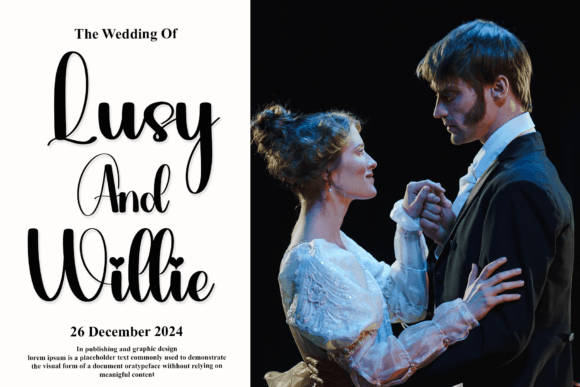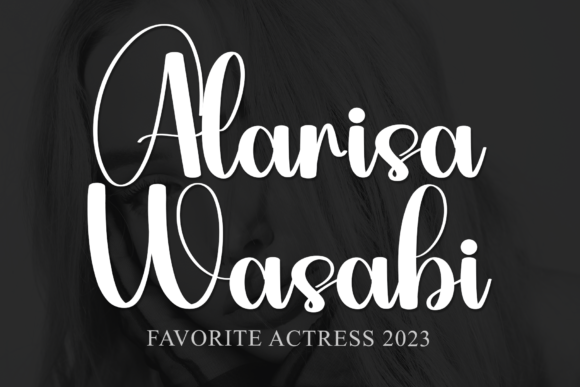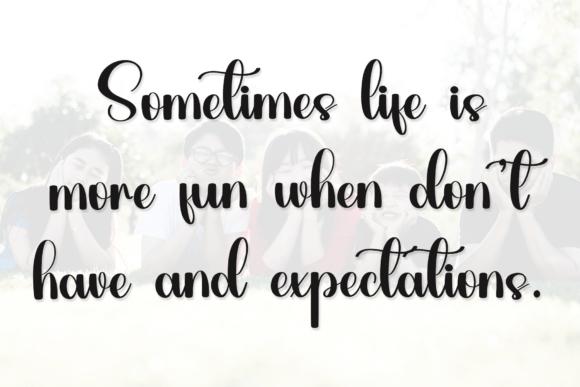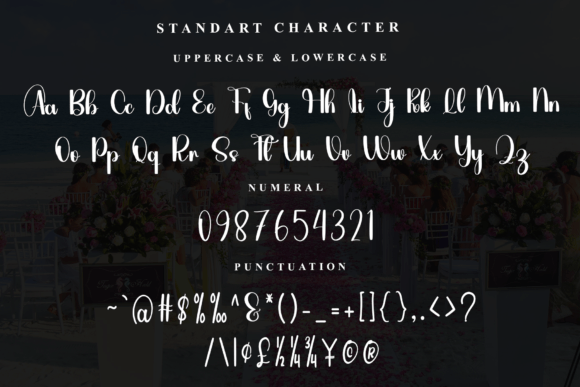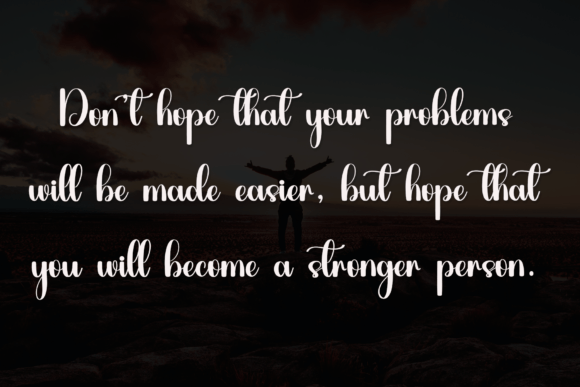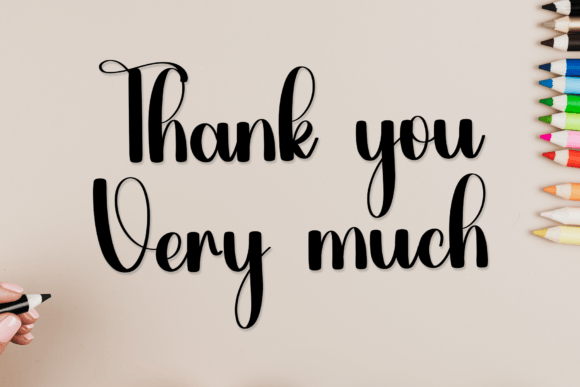
The Perfect Font for a Fresh and Casual Vibe
Have you ever stared at a blank canvas, trying to find the perfect font to match your creative vision? You know that feeling when you’re on the verge of a design breakthrough, but just need that one crucial element to bring it all together? For many designers, this is the moment when the right font can make all the difference.
Enter Balentia Font, a charming handwritten font that embodies the essence of freshness and casual elegance. With its fluid strokes and organic lines, Balentia Font is the perfect addition to any design project, from branding and invitations to social media graphics. Its unique character adds a touch of warmth and personality, making it a valuable asset for designers looking to create memorable and engaging designs.
Balentia Font Key Features
- Font Family: Balentia Font is a modern, elegant script font family, ideal for various design applications.
- Unique Characteristics: Balentia Font features a flowing, cursive design with subtle flourishes, perfect for creating elegant and sophisticated typography.
- Font Styles: The font family includes multiple styles, including Regular, Italic, Bold, and Bold Italic, providing versatility for various design applications.
Balentia Font Review
Overall, I think the Balentia Font has some great qualities that make it a solid choice for designers. ✨ The font’s elegant and refined aesthetic makes it perfect for high-end branding, luxury goods, and other premium projects. It’s also quite versatile and works well in both print and digital applications. ✨ The font’s subtle flair and delicate curves give it a sophisticated feel that’s sure to elevate any design.
One of the things I appreciate most about Balentia is its strong legibility. ✨ It’s easy to read, even at smaller font sizes, which makes it a great choice for body text or titles. The font also comes in a range of weights and styles, giving designers a lot of flexibility when it comes to customizing their designs.
- ⚠️ Limited expressiveness: While Balentia is great for high-end branding, it may not be the best choice for more creative or experimental projects.
- ⚠️ May not be suitable for bold or eye-catching titles: Balentia’s elegant aesthetic can make it difficult to create bold, attention-grabbing titles.
- ⚠️ Some users may find the font too conservative: If you’re looking for a font with a lot of personality or flair, Balentia may not be the best choice.
Overall, I think the Balentia Font is a solid choice for designers who are looking for a high-end, sophisticated font for their projects. While it may have some limitations, it’s a great option for those who want a refined and elegant aesthetic.
Tips for Getting the Most Out of Balentia Font
1. Use Balentia Font in combination with other elegant fonts to create a sophisticated look.
2. Experiment with different font sizes and colors to add depth and interest to your design.
3. Use Balentia Font in headings and titles to add a touch of elegance and sophistication.
Common Use Cases for Balentia Font
2. Luxury brand logos and packaging.
3. High-end marketing materials and advertising.